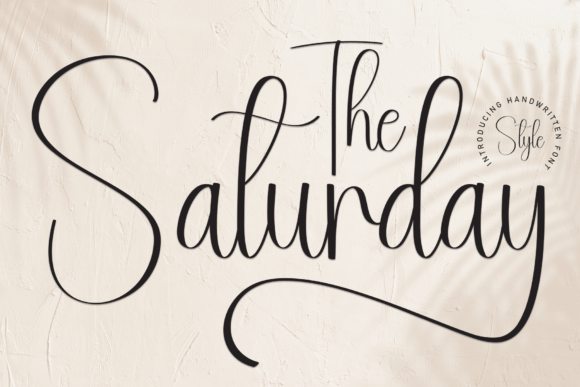
Venture into the world of handwritten elegance with The Saturday Font, a script font crafted with love by William Jhorby. This charming display font exudes a touch of sweetness and friendliness that will add a personal touch to your creative projects.
With its whimsical curves and playful characters, The Saturday Font is perfect for capturing the essence of special occasions. Picture your wedding invitations adorned with this delicate script, exuding a sense of romance and joy. Create heartfelt cards with messages that come alive, thanks to the font's warm and inviting personality.
Beyond weddings, The Saturday Font shines in a myriad of other design endeavors. Bring your social media posts to life with captivating headlines that pop off the screen, ensuring your content stands out in the digital crowd. Design eye-catching posters and flyers that invite readers into your world, leaving a lasting impression with every stroke of the pen.
This versatile font is also a perfect fit for branding and logo design. Its unique style adds a touch of sophistication and charm, helping your business stand out from the competition. Whether you're a creative professional or a design enthusiast, The Saturday Font is your perfect companion, ready to transform your ideas into stunning visual masterpieces.